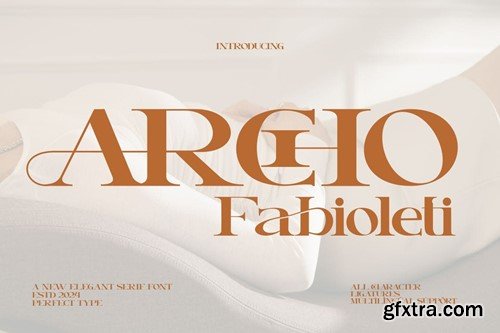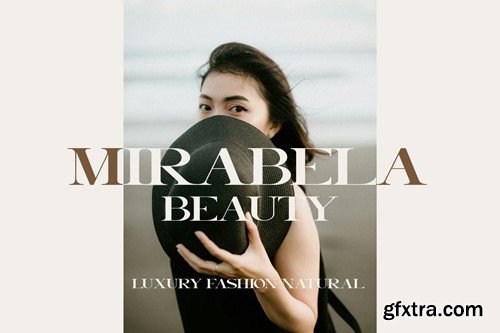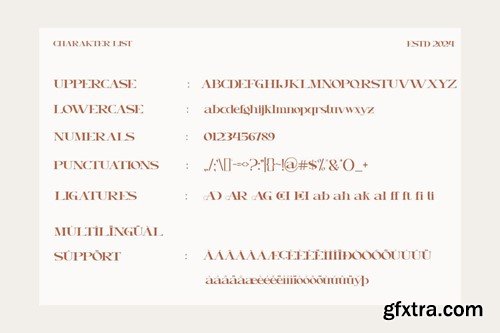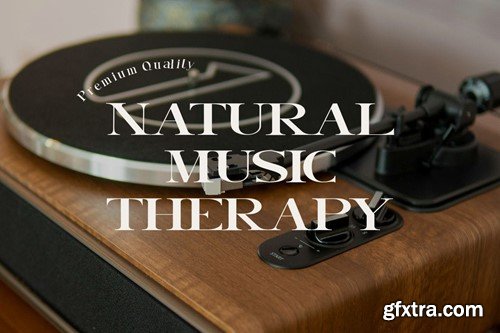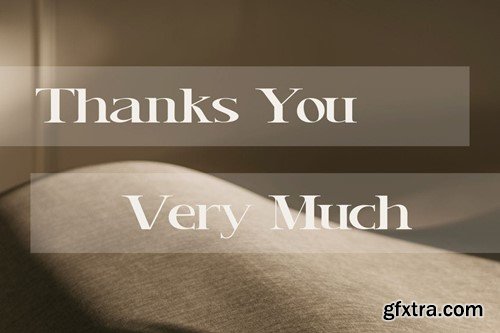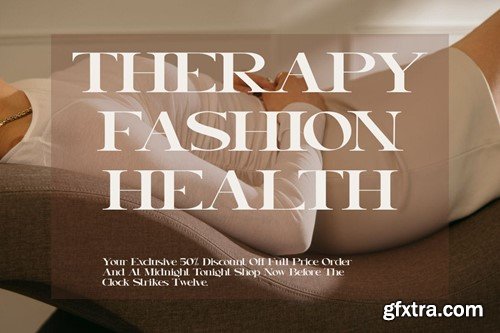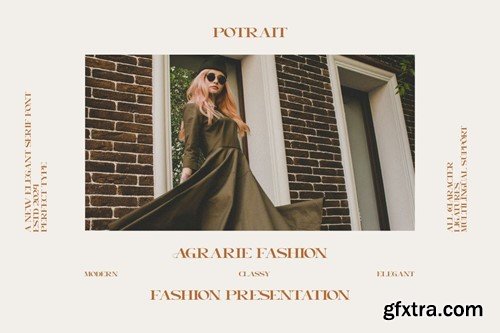
ARCHOFabioleti - Elegant Serif Font
Proudly present our new product ARCHOFabioleti - Elegant Serif Font is a modern and authentic font. Perfect for professional needs and product branding, this font is suitable for any branding project such as quotes, logos, blog headers, posters, ribbons, letters, invitations, stationery, etc... Designed to be versatile and flexible that can be used on a variety of projects and media. extraordinary in a variety of contexts. Available In file form for download Otf Ttf Uppercase If you have any questions, queries or concerns please do not hesitate to contact us directly. Appearance and cover image Not included in the download file, just for presentation purposes only.